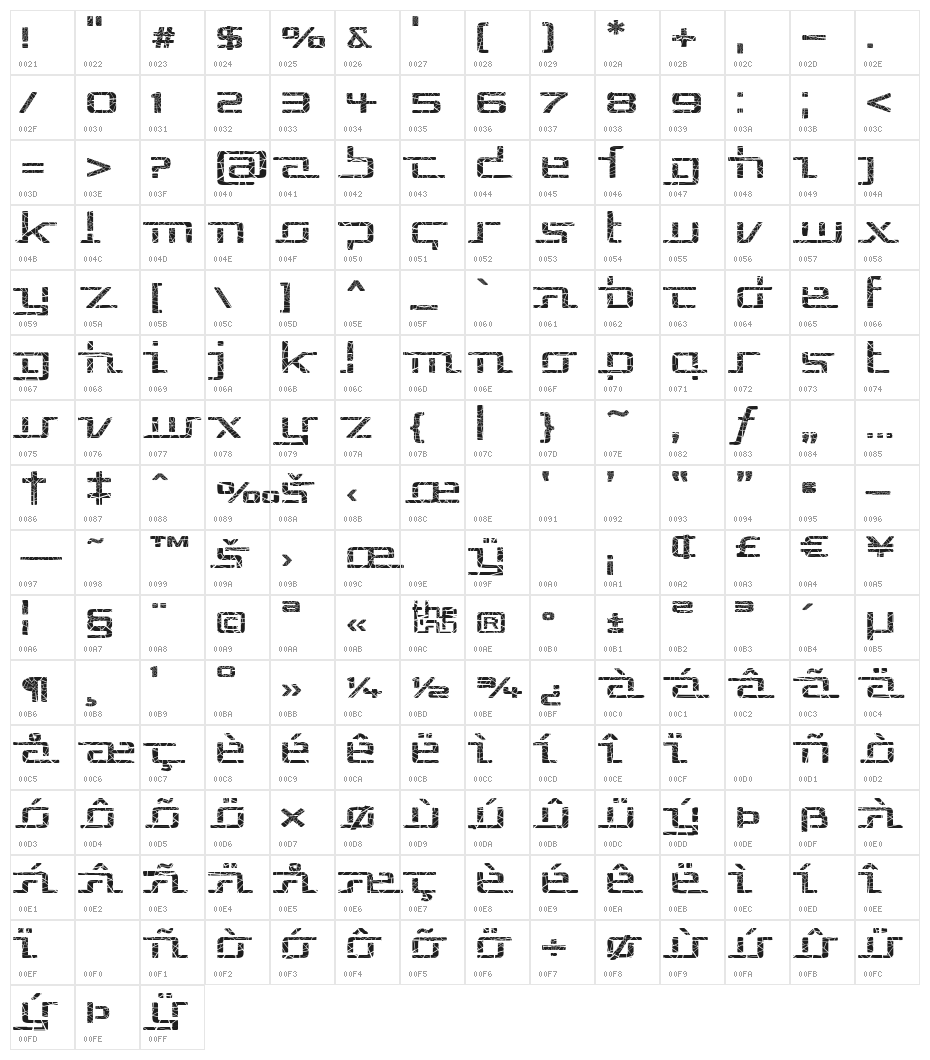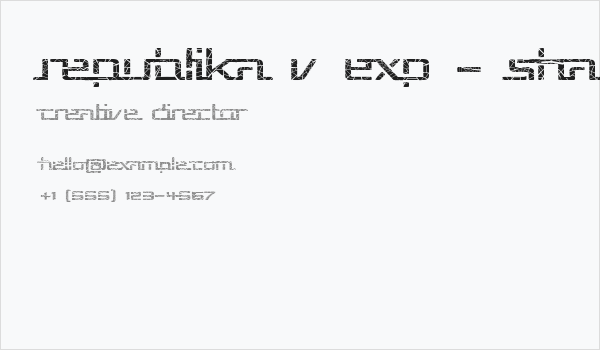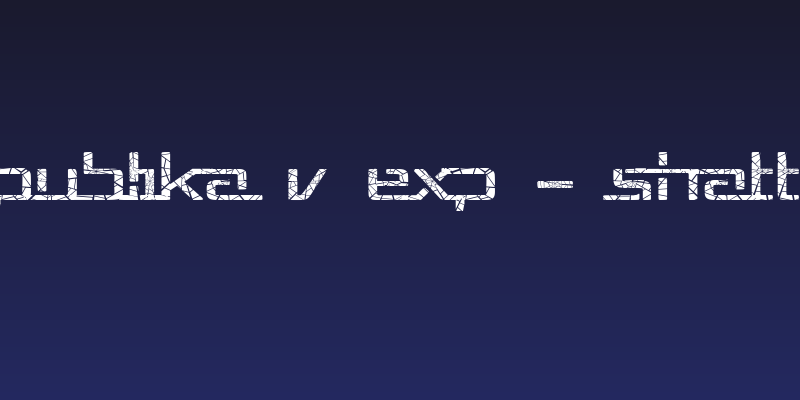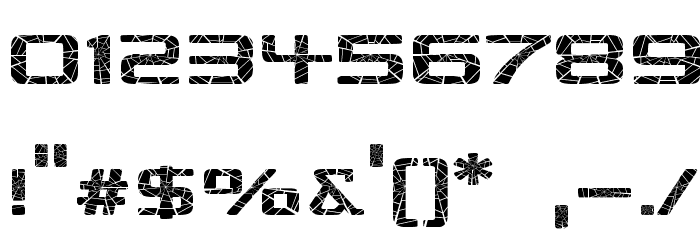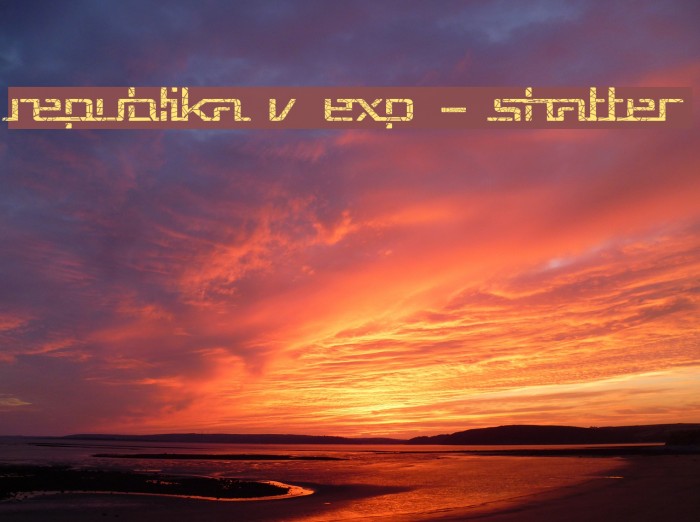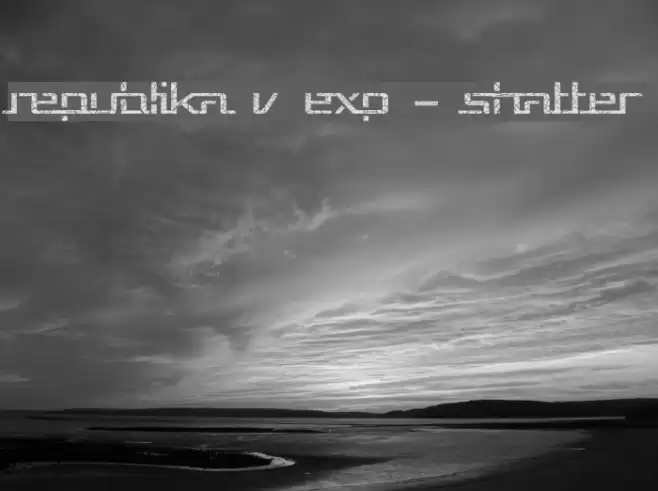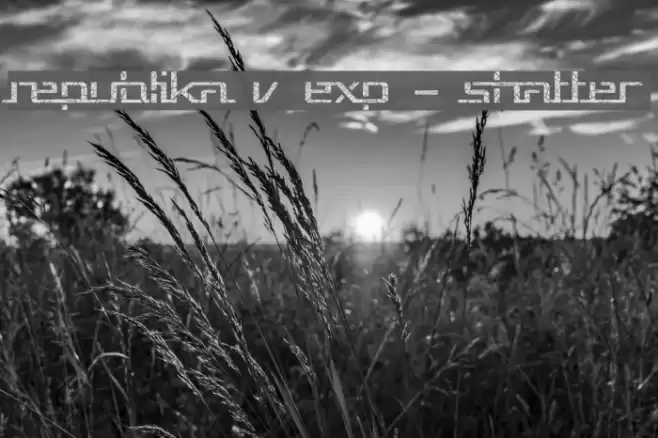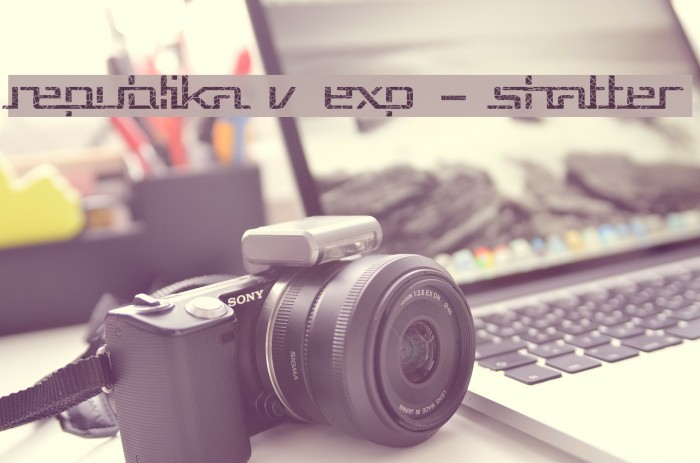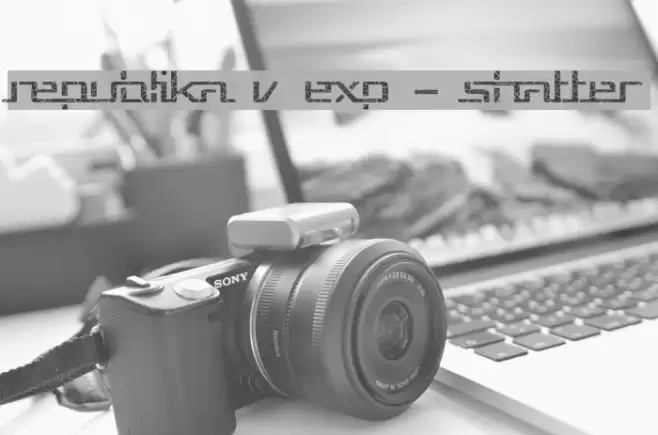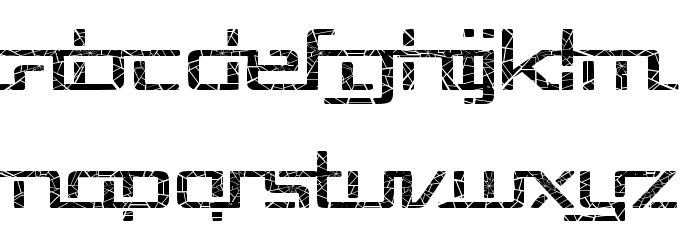
Republika V Exp - Shatter Font
Republika V Exp - Shatter Description
This font features a unique shattered glass effect, creating a dynamic and edgy appearance. The characters are constructed with angular, fragmented shapes that give the impression of broken pieces fitting together. This design choice adds a sense of movement and energy, making it stand out in any context. The uppercase and lowercase letters maintain a consistent style, with sharp edges and a geometric structure. Numbers and special characters follow the same shattered aesthetic, ensuring a cohesive look across all elements. The font's distinct style is ideal for projects that require a bold and unconventional visual impact.
| Use Case | Logos, Headlines, Posters |
| Proposed Projects | Ideal for music album covers, edgy branding, posters, and modern art projects. |